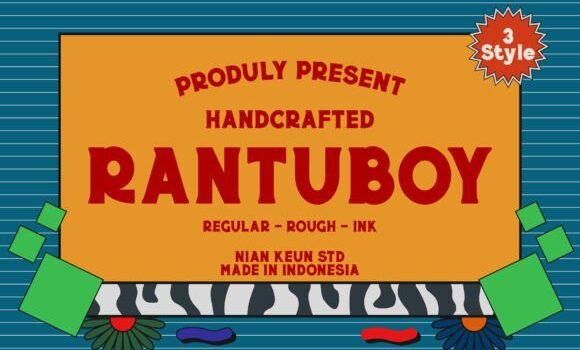
rantuboy
Rantuboy Font – Free Download Introduction to Rantuboy Font Rantuboy is a fun, retro-style display font. 📸 Preview Gallery 6 images 📌 Product Name Rantuboy Font 👤 Author niankeun 📂 Category Explore ⬇️ Download Rantuboy Font FREE Free Download •